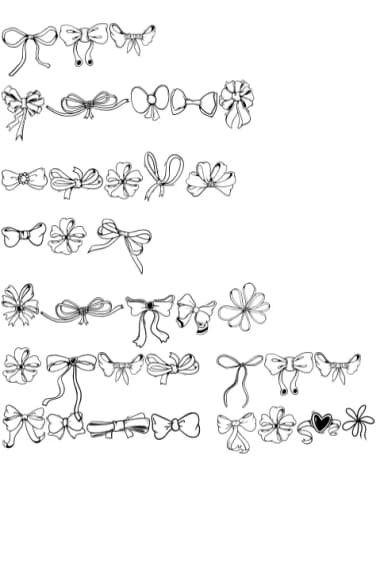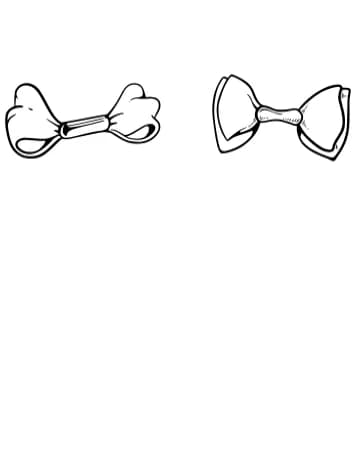
Cute Bow is a hand-drawn dingbats collection that trades generic flourishes for actual character. Designed by onoborgol, this font delivers a library of bow and ribbon elements rendered in clean line work, giving you decorative glyphs that read as intentional rather than hastily added. The outline style keeps things flexible, so you can fill, stroke, or layer these marks however your design calls for it.
What sets this collection apart is how naturally these bows integrate into both detailed and minimal work. Use these glyphs to anchor wedding invitation suites with custom ribbon details, or drop them into DIY craft signs and hand-lettered gift tags that feel cohesive. Scrapbooking layouts benefit from the playful bow variations, and the set works equally well as embellishments on greeting card designs and event program decoration. Because each glyph sits at a usable size and weight, they integrate smoothly into hand-drawn projects without overpowering your typography or cluttering your layout.
Cute Bow Font is a versatile dingbats font that works for both headings and body text. Pair it with a contrasting sans-serif or serif font to add visual interest and a clear distinction between titles and body copy.
Cute Bow Font
by onoborgol